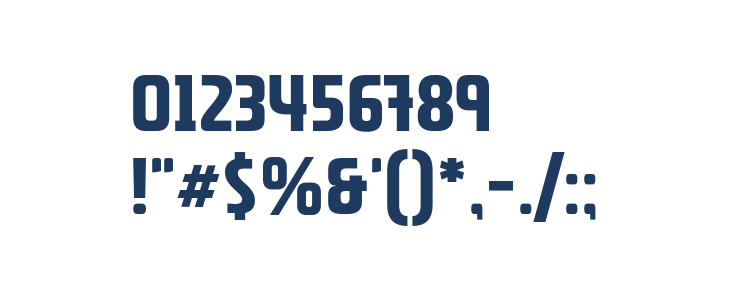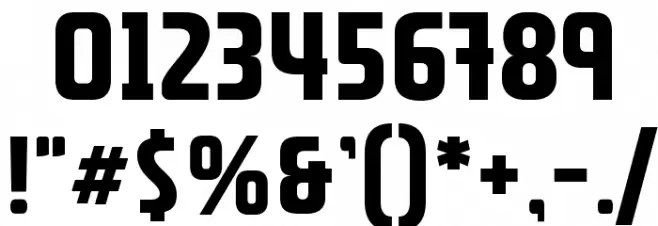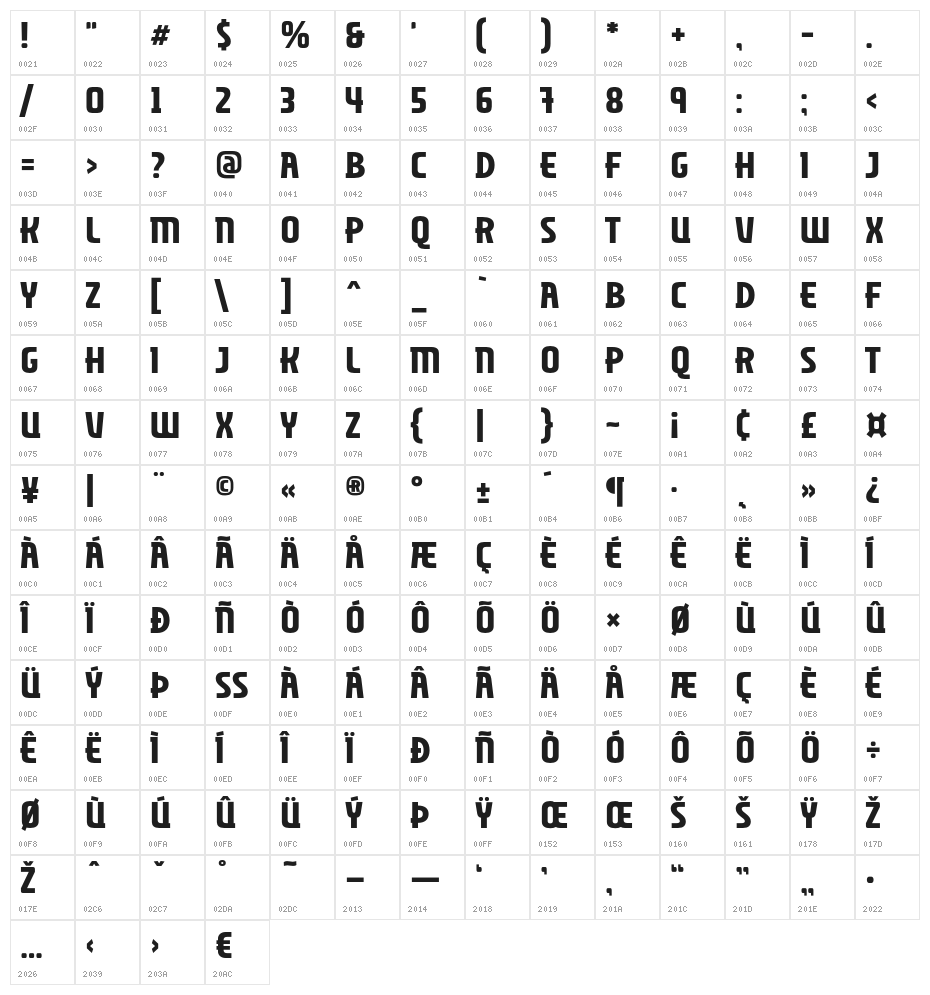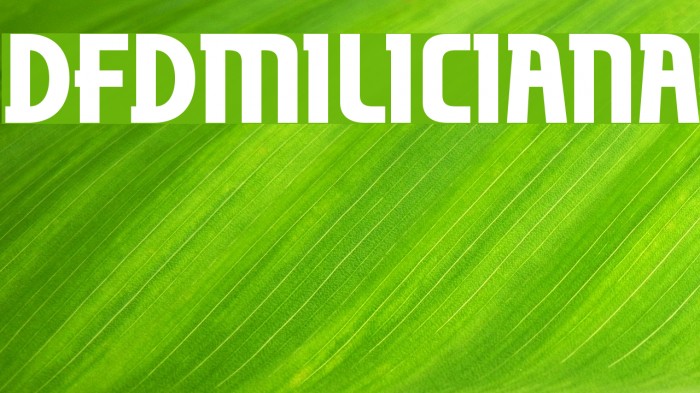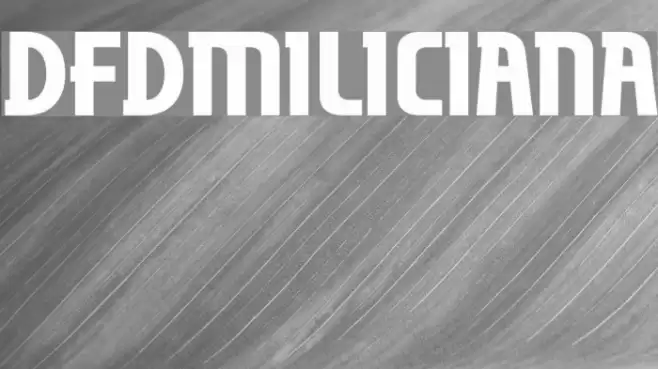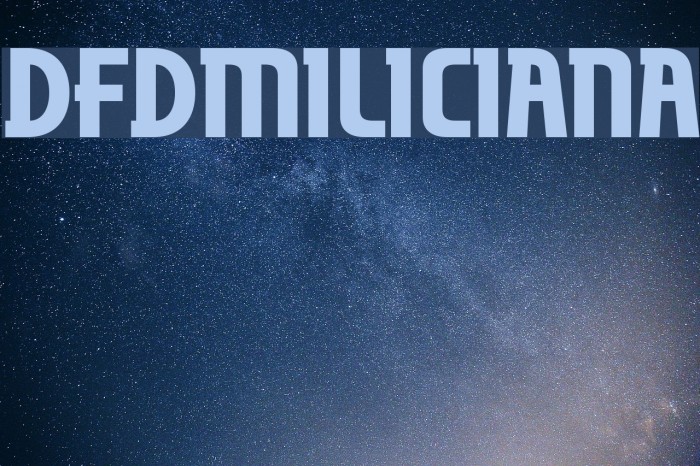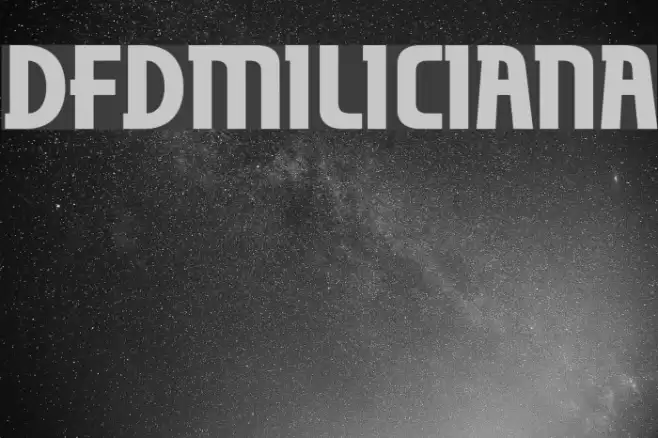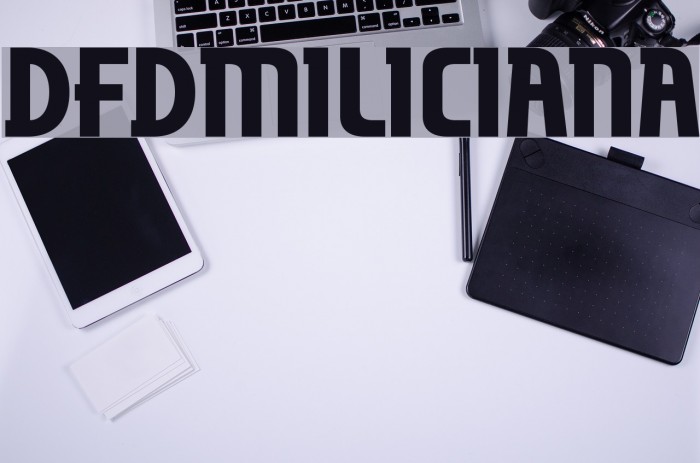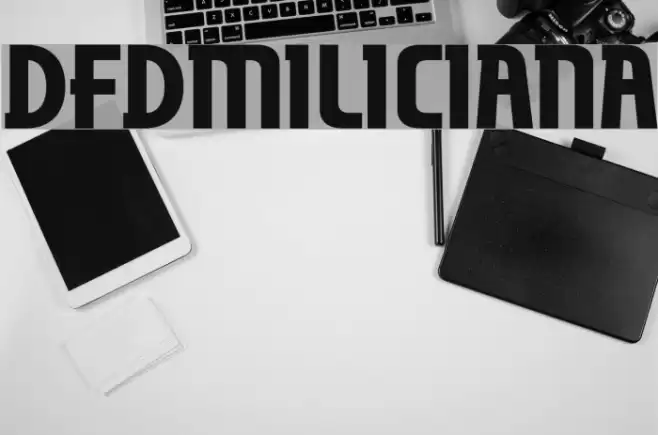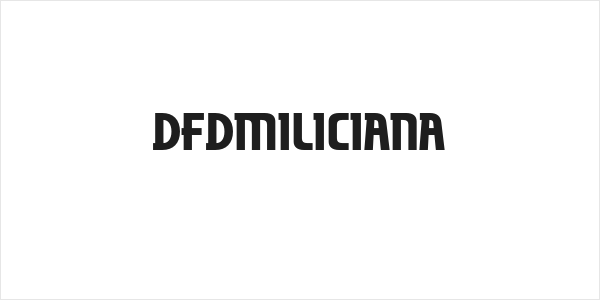
dfdMiliciana Font
dfdMiliciana Description
This font features a bold and striking design with a strong geometric influence. The characters are uniformly thick, giving it a robust and impactful appearance. The uppercase letters have a slightly condensed form, while the lowercase letters maintain a consistent width, providing a harmonious balance. The numbers are clear and legible, matching the boldness of the alphabet. Special characters are designed with the same attention to detail, ensuring they integrate seamlessly with the rest of the font. This typeface is ideal for making a statement, with its bold lines and modern aesthetic.